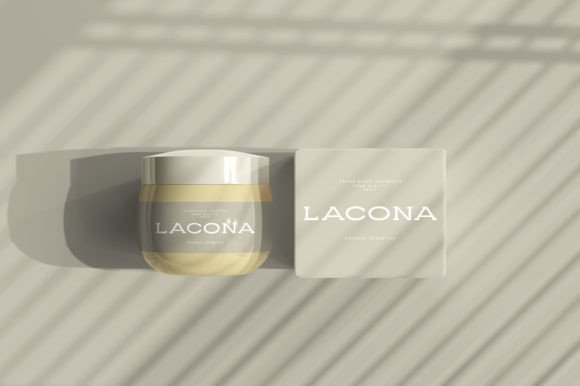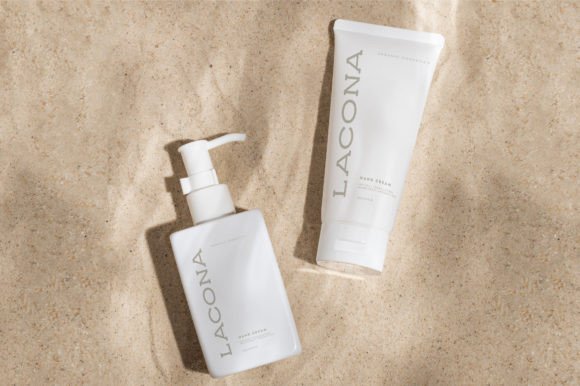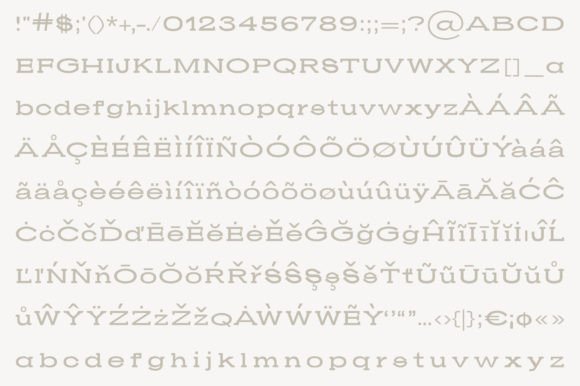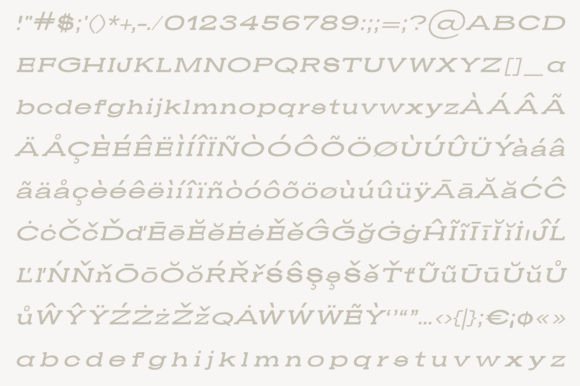
Lacona
Lacona: A Wide, Elegant, and Minimalist Slab Serif Font
Lacona is a wide, elegant, and minimalist slab serif font perfect for labels for perfumes, cosmetics, magazine covers, posters, manifests, flyers, social posts, and fashion. Use it in your creations, and you will notice how fast it will become one of your favorite fonts.
Key Features of Lacona
• Wide Design: Offers a spacious and impactful look suitable for various applications.
• Elegant Aesthetics: Brings a touch of sophistication to designs.
• Minimalist Style: Features clean lines and simple forms for a modern look.
• Versatile Application: Ideal for both print and digital media projects.
Ideal Uses for Lacona
Lacona’s unique characteristics make it particularly well-suited for:
When incorporating Lacona into your designs, consider these tips:
• Use for headlines or short blocks of text to showcase its wide and elegant style.
• Experiment with different sizes to highlight the font’s minimalist features.
• Utilize its versatility to create designs that span various industries and styles.
Lacona is an excellent choice for designers looking to add a wide, elegant, and minimalist slab serif font to their typographic toolkit. Its ability to adapt to various design contexts makes it stand out in the world of typography. Whether you’re working on luxury product labels, creating magazine layouts, or developing content for social media, Lacona offers the perfect blend of sophistication and modernity.
Furthermore, Lacona’s unique design allows it to shine in various contexts. From perfume labels to fashion branding, this font can elevate your projects with its distinctive style. Its wide yet elegant appearance works particularly well in designs that aim to convey a sense of spaciousness and refinement.
In conclusion, Lacona is a font that truly captures the essence of modern elegance with a minimalist twist. Its versatility across different media showcases its adaptability to various creative needs. For those looking to add a touch of sophisticated charm to their work, Lacona can enhance themed creations with its distinctive style. It’s the perfect choice for designers seeking to make a refined, stylish impact across a wide range of creative projects.